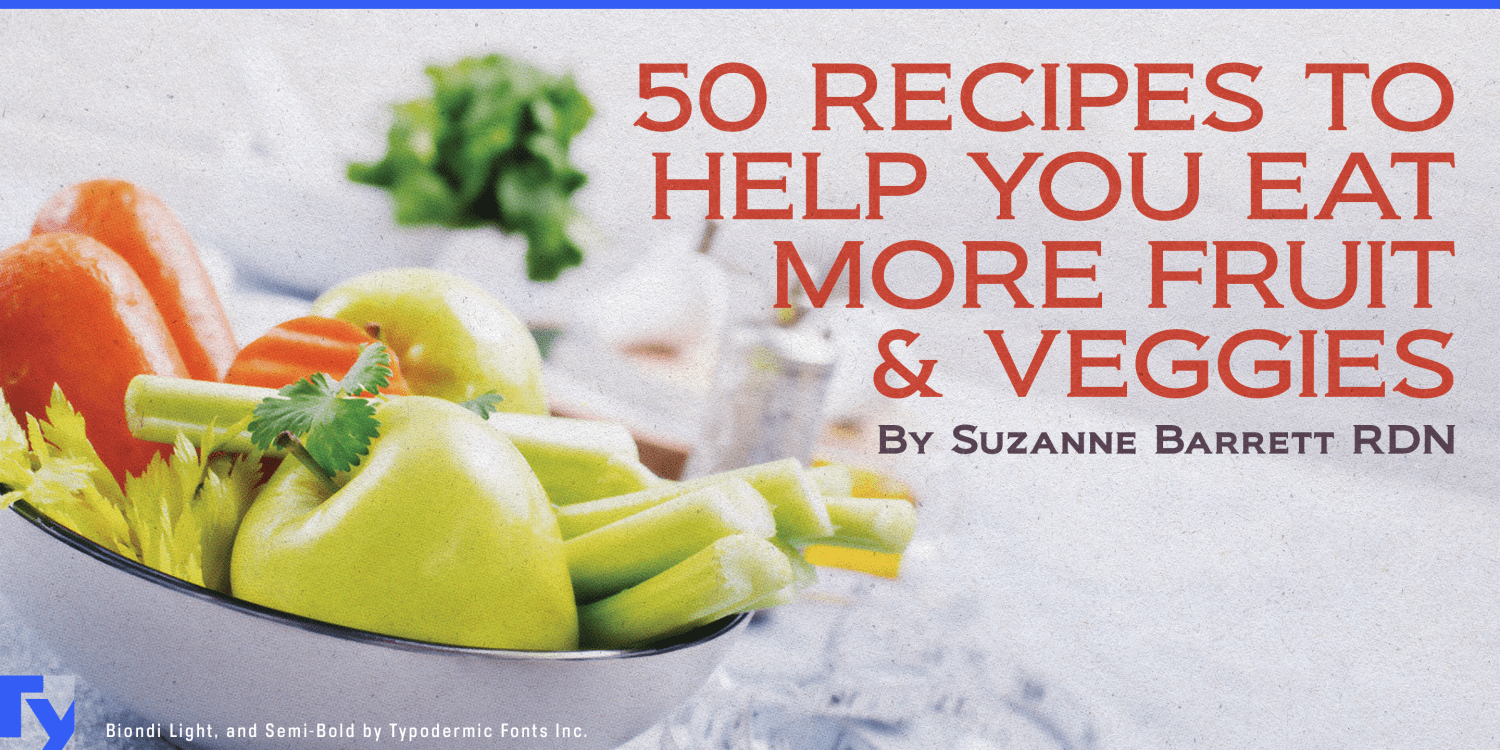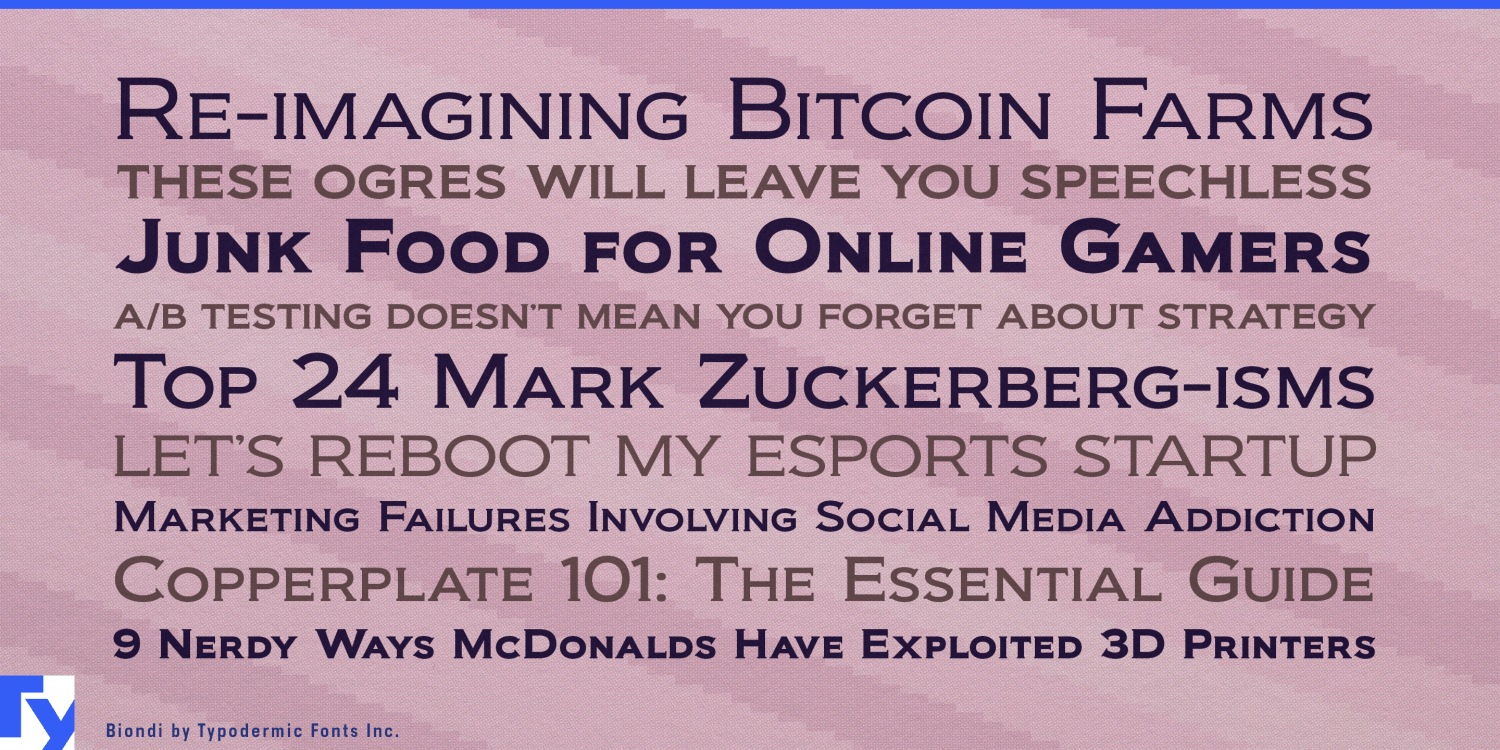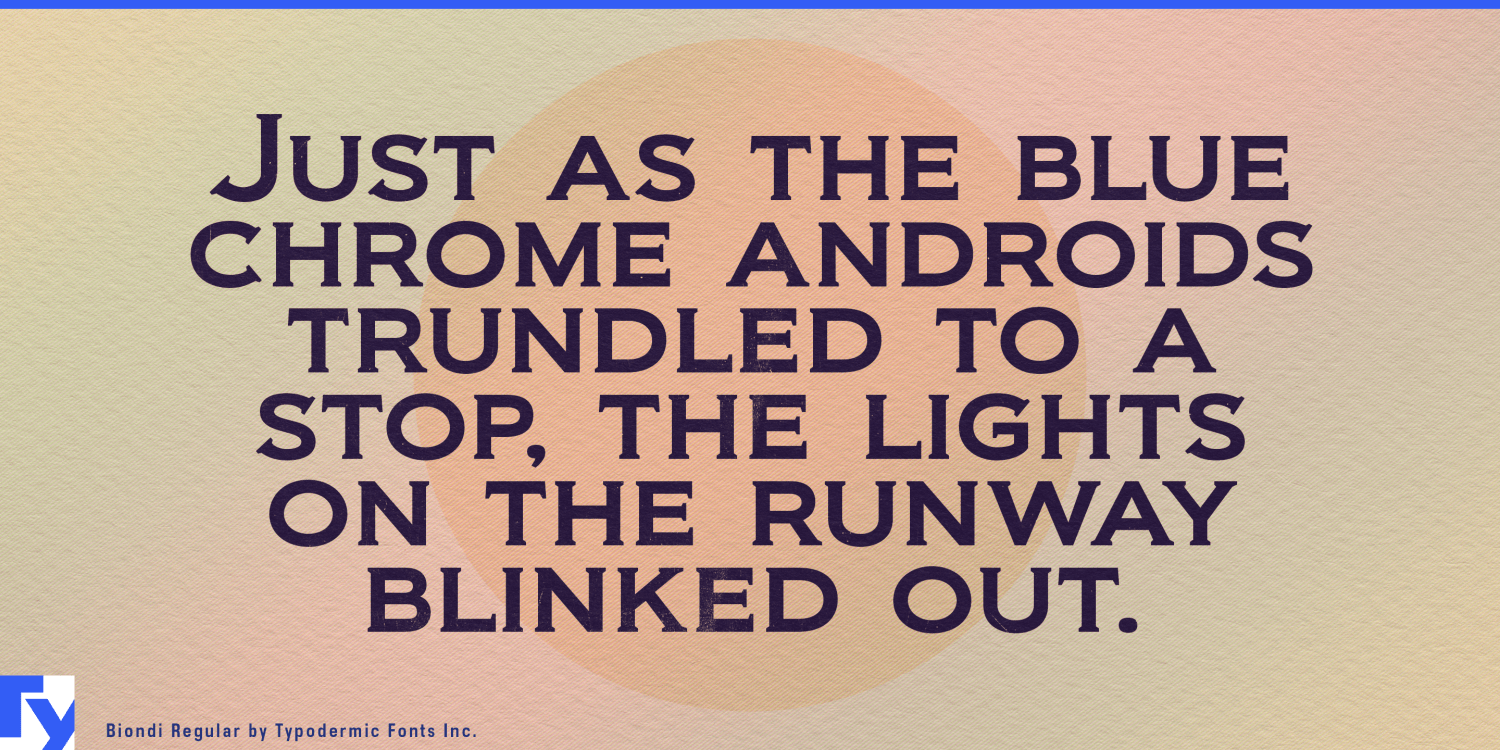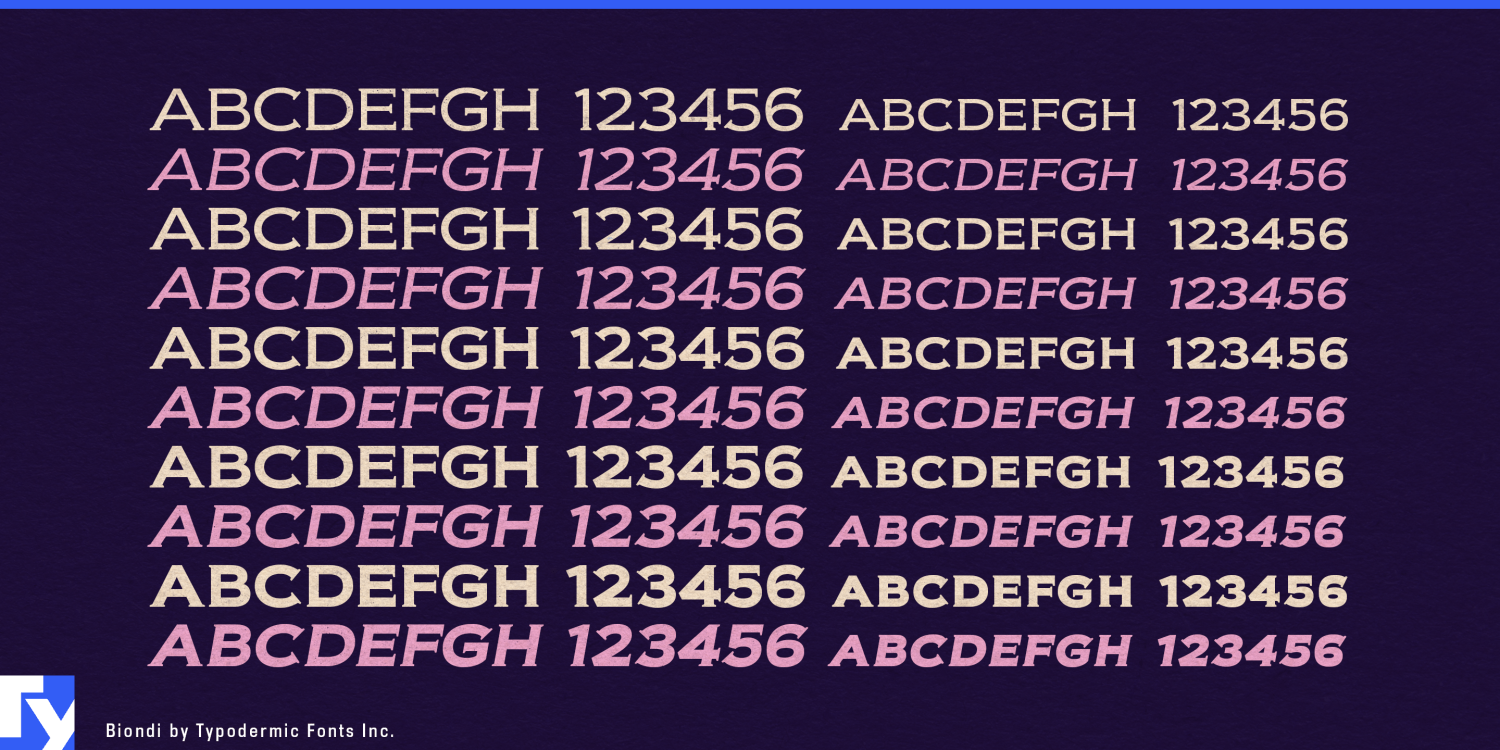
Biondi Regular
About Biondi Regular
Introducing Biondi, a sophisticated typeface that breathes new life into classic design. Inspired by the iconic Copperplate Gothic, Biondi retains the beloved wide, squarish shape of its predecessor while boldly stepping into the modern era. At its core,…